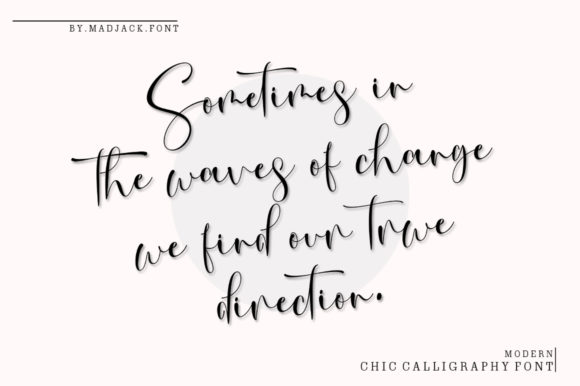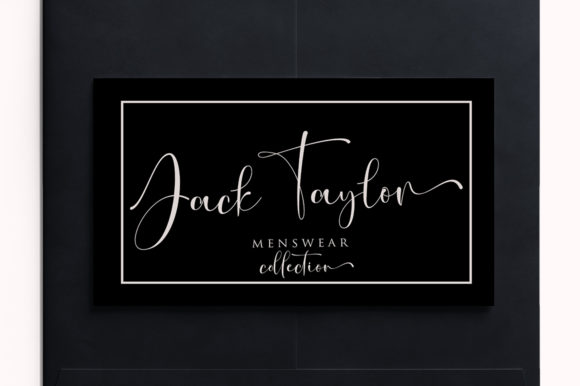
Rostalina Signature Font
db-ku.com - Script & Handwritten -- Rostalina Signature is a romantic and sweet calligraphy typeface with characters that dance along the baseline. It can be used for various purposes such as logos, wedding invitations, headings, t-shirts, letterhead, signage, labels, news, posters, badges and so much more.